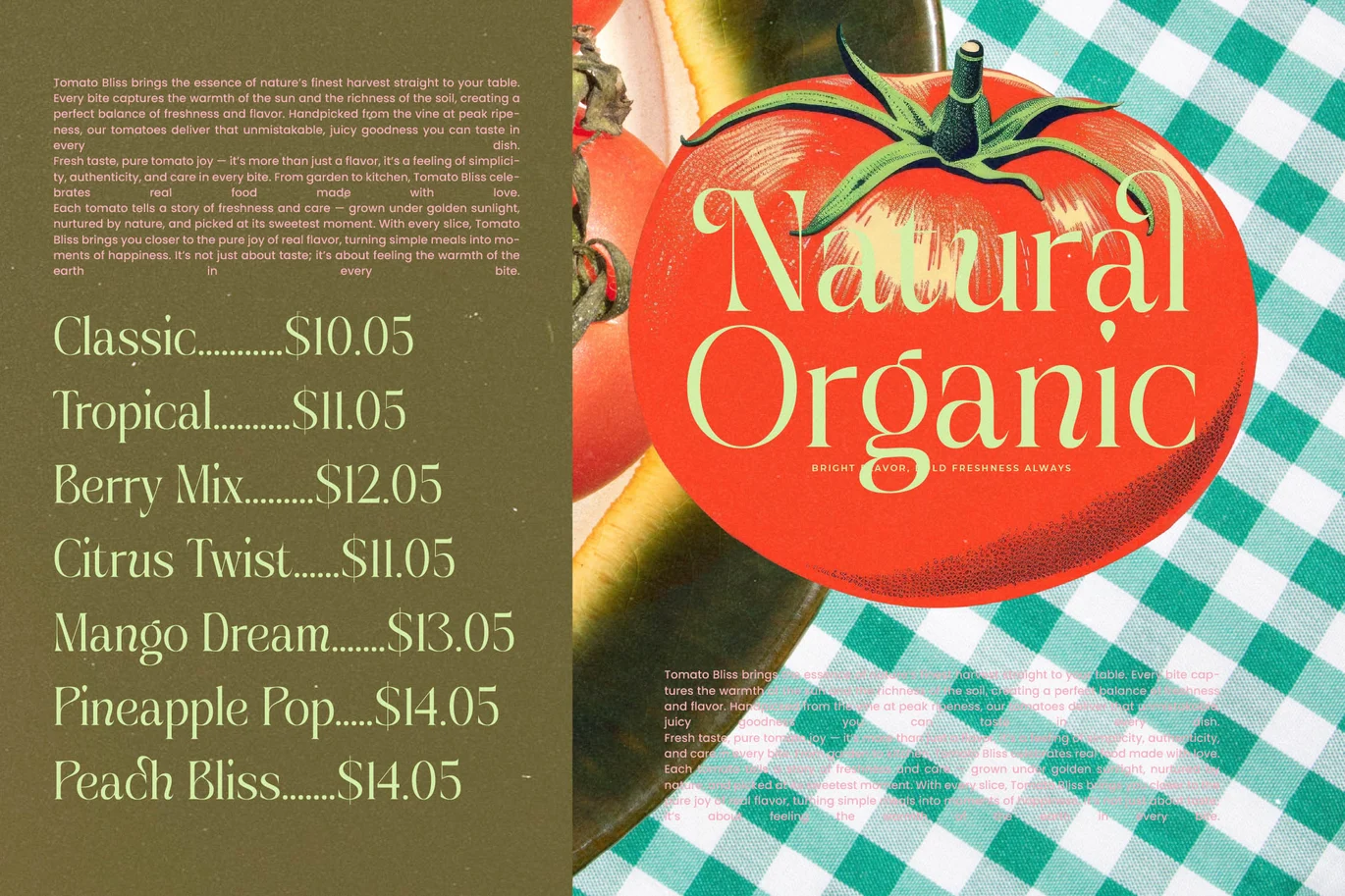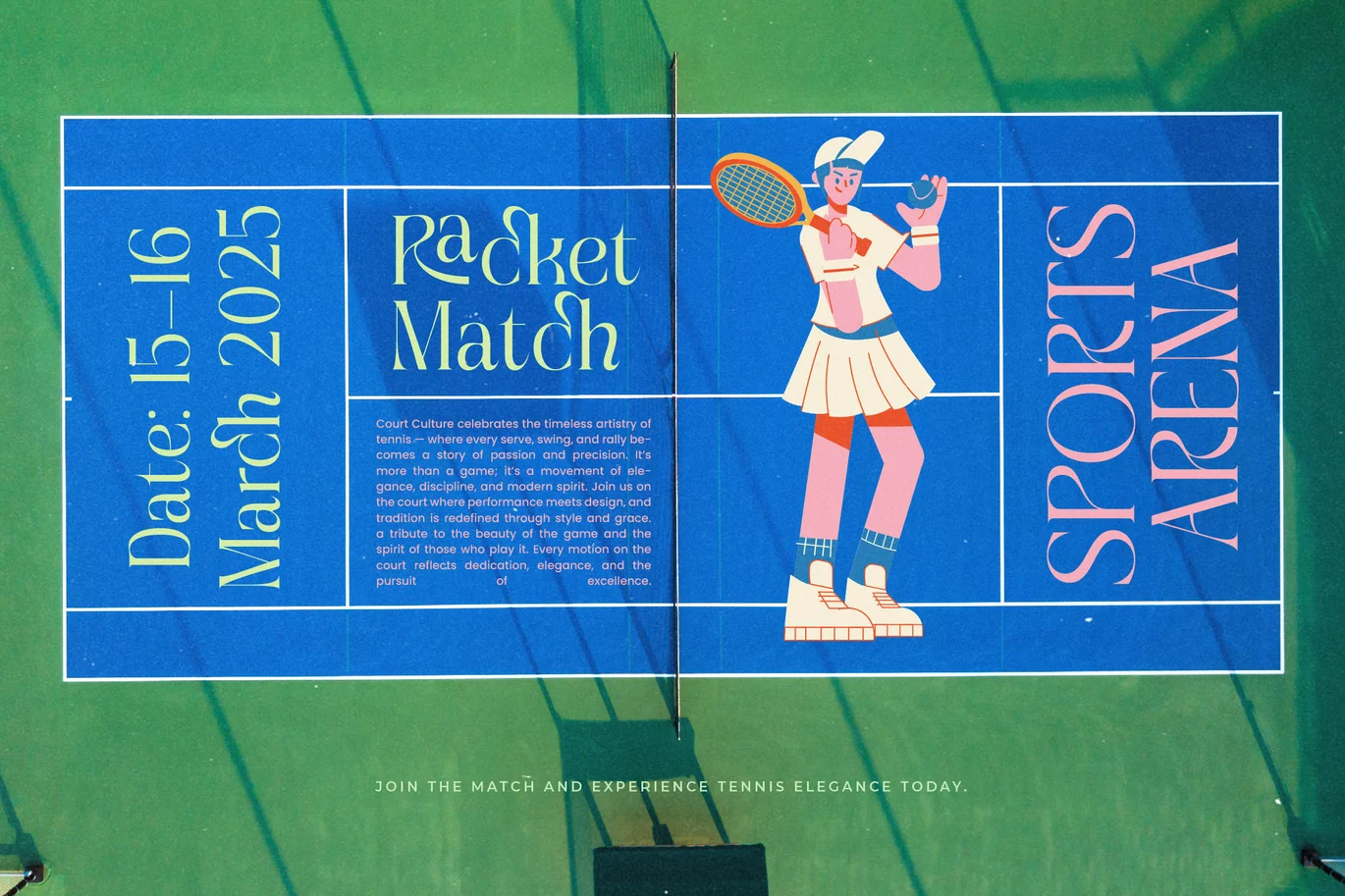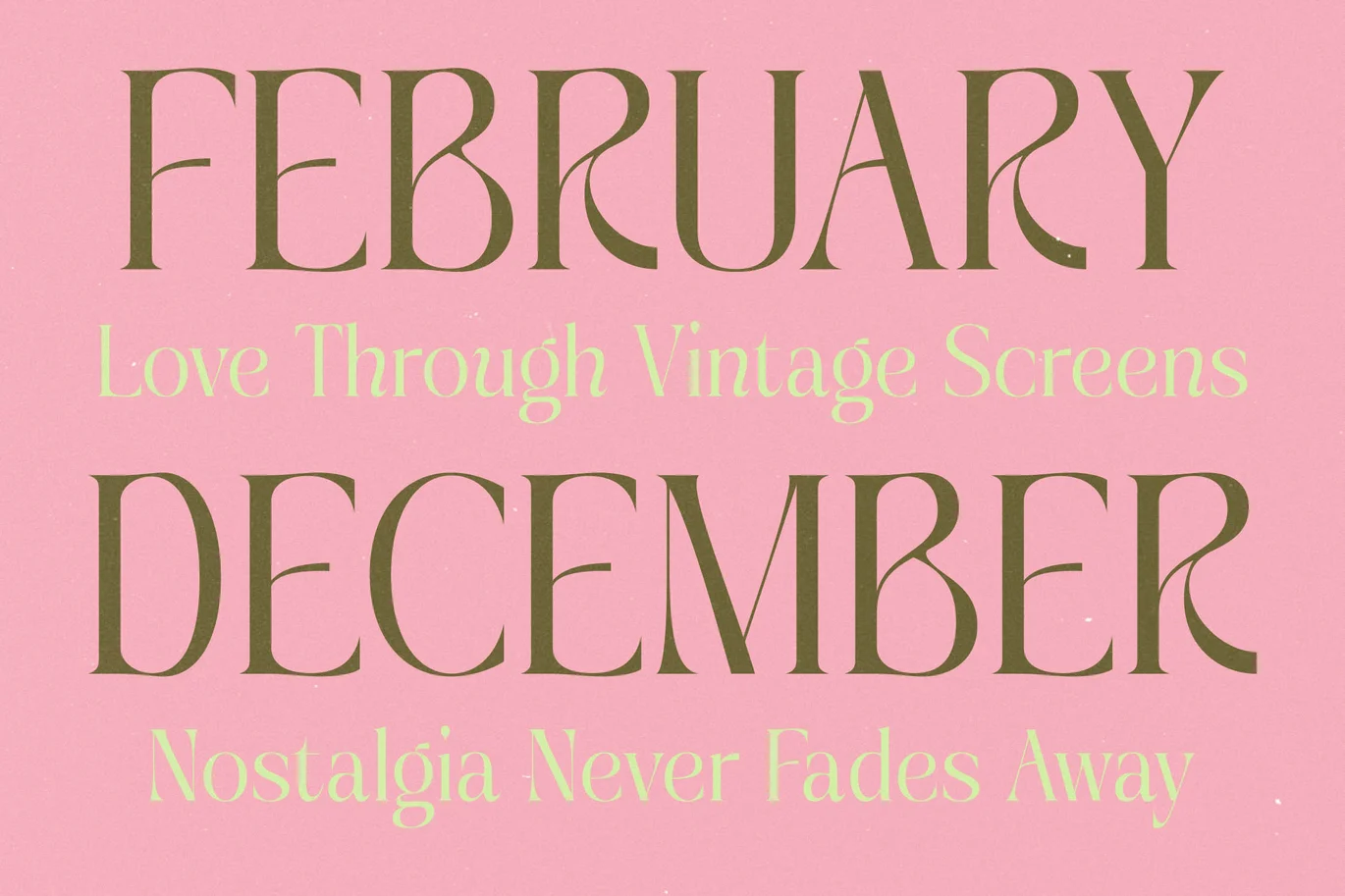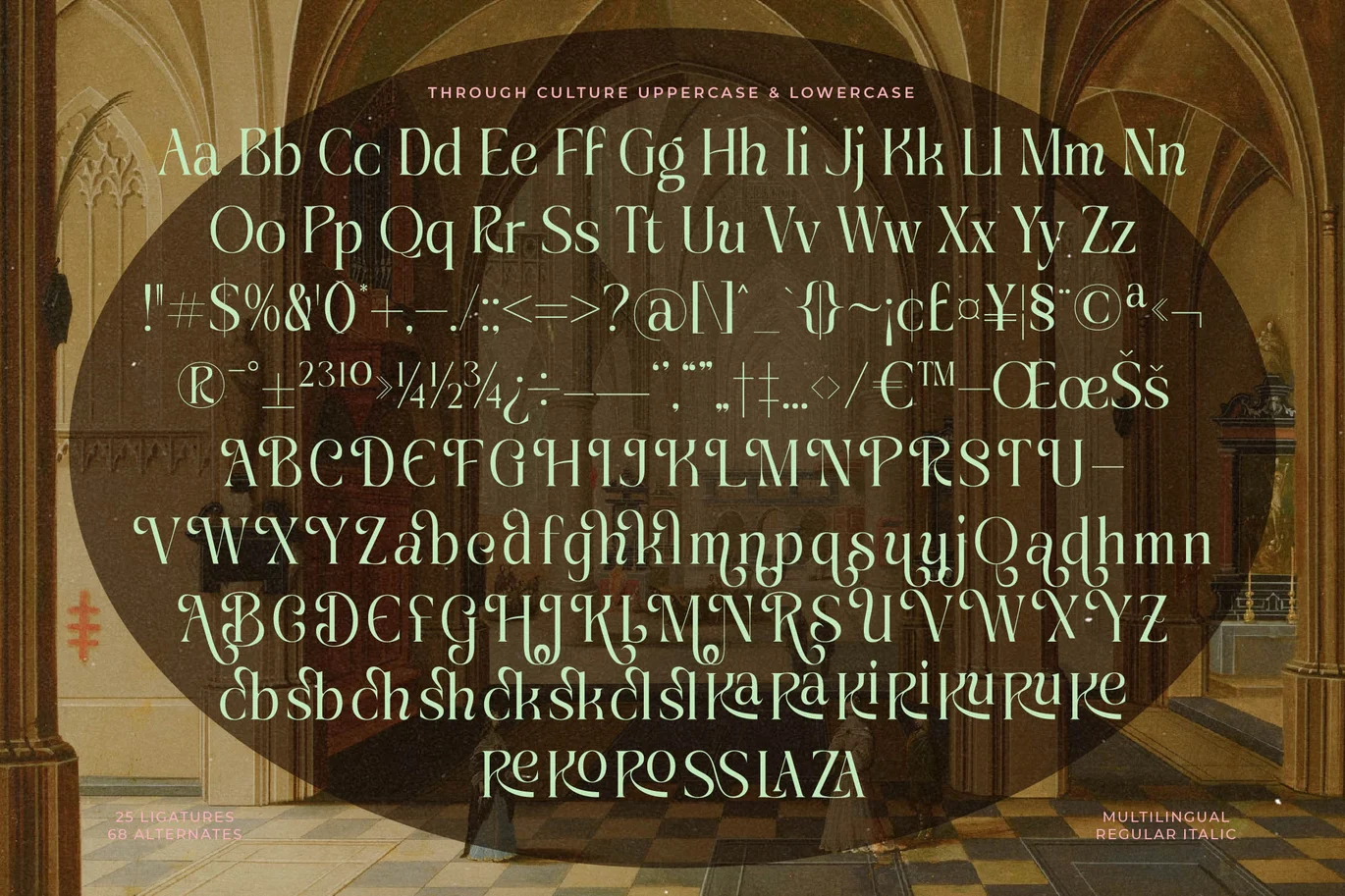
Through Culture – Editorial Elegant Serif Font
Through Culture - Editorial Elegant Serif, Through Culture is a modern editorial serif font that embodies the beauty of classical art and the sophistication of contemporary typography. With 25 ligatures, 68 alternates, and a total of 425 glyphs, this typeface blends graceful curves and refined contrast, making it perfect for magazine headlines, luxury branding, elegant packaging, and timeless logo design. Inspired by the essence of heritage and creativity, Through Culture brings an artistic spirit to modern design. Its balanced proportions and subtle flourishes create a sense of cultured refinement, ideal for designers who value both beauty and intellect in their typography.